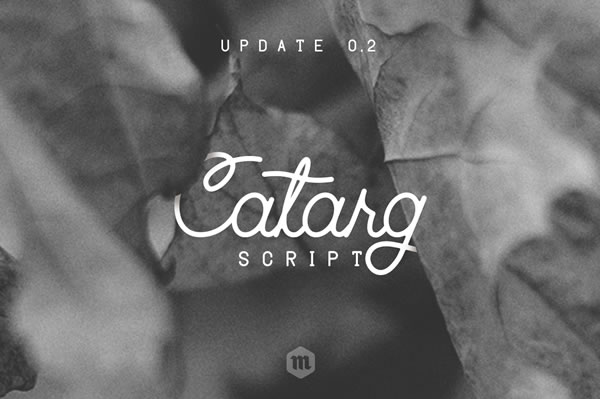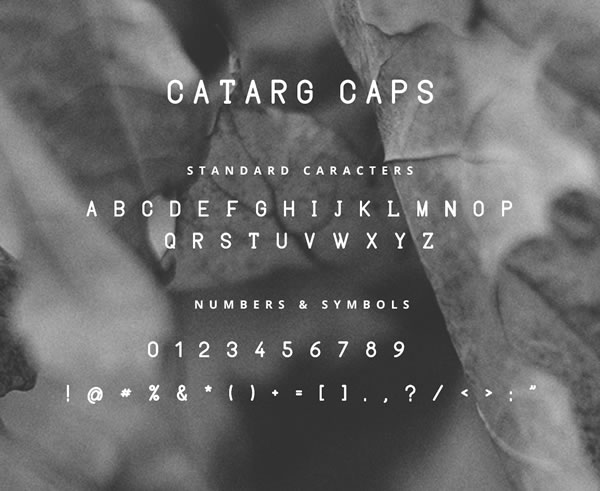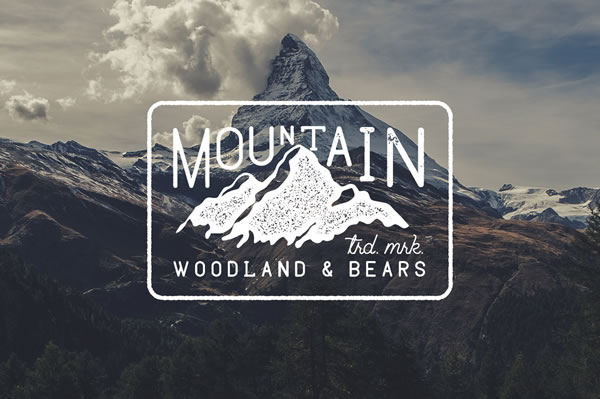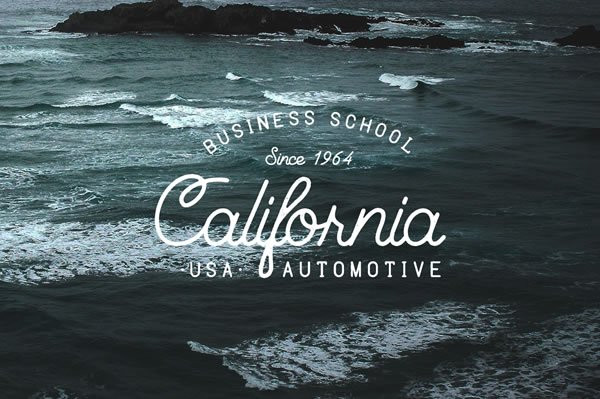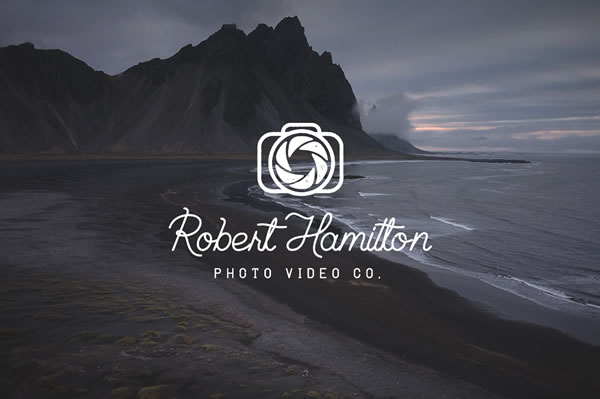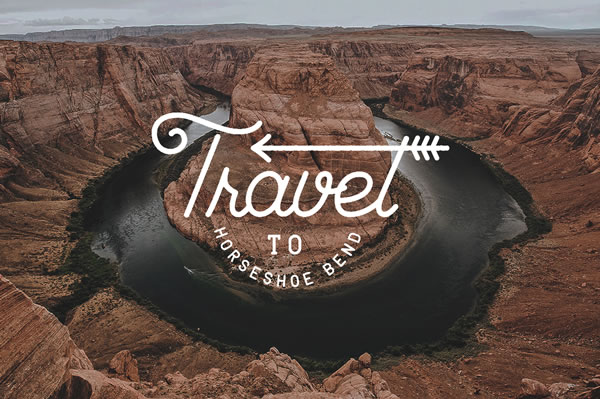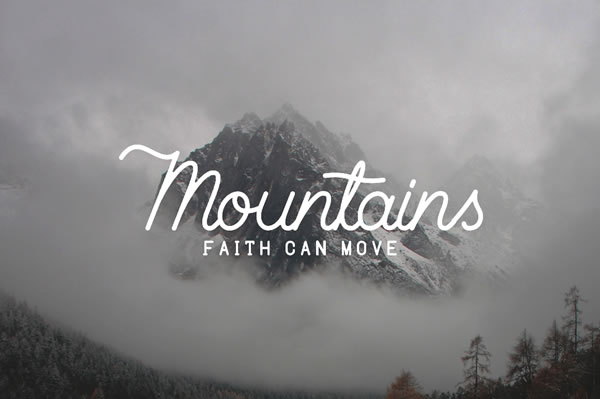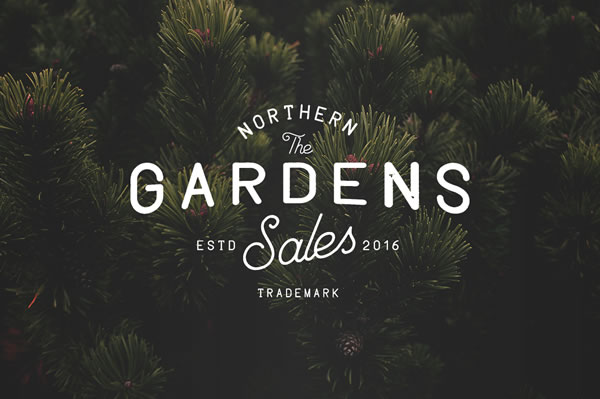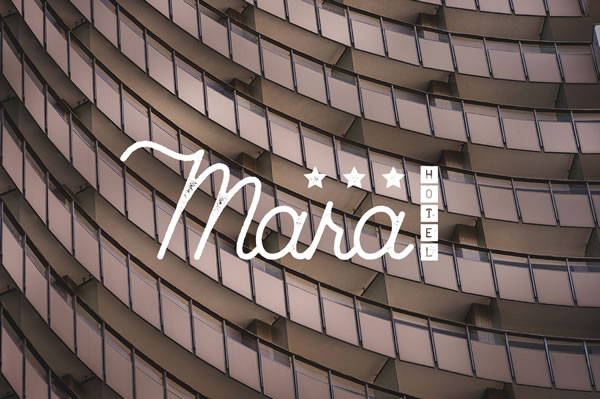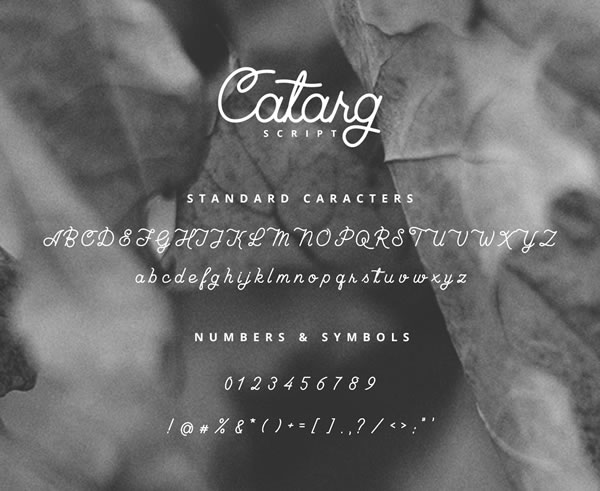
Catarg Font
About Catarg Font
Inspired by traditional script lettering that typically is used in vintage-themed designs. Catarg is suitable for any project that requires a natural hand lettered feel.